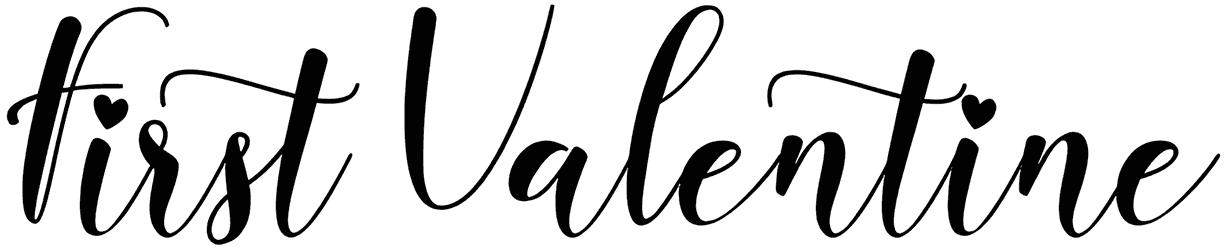
First Valentine Font
Good news for those who have already tasted the sweet artistic touch of our romantic letter textures in their artwork! First Valentine with a feminine vibe can hit the game and win the trust of the audience despite lacking numbers.